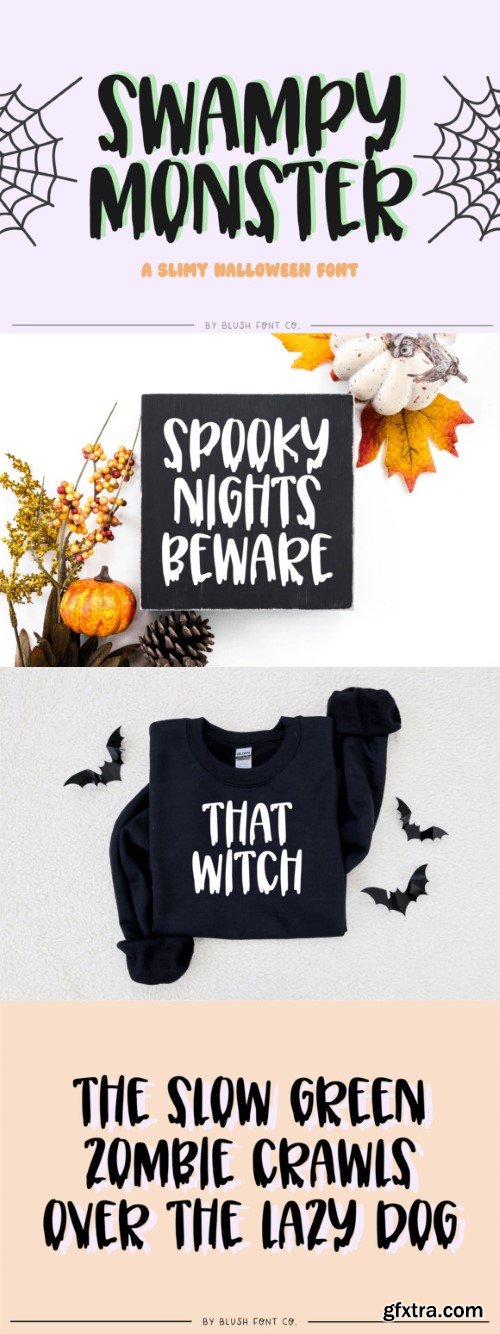
Swampy Monster 字体
Swampy Monster is a spooky Halloween slime font. This is an installable font that will work great with your Halloween party invitations, web graphics, and other Halloween decor.